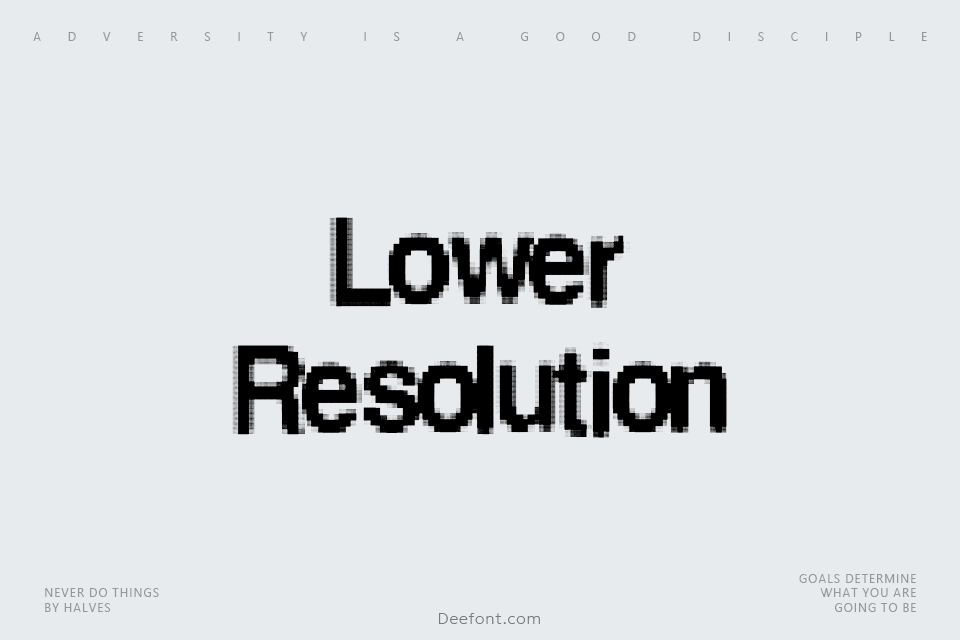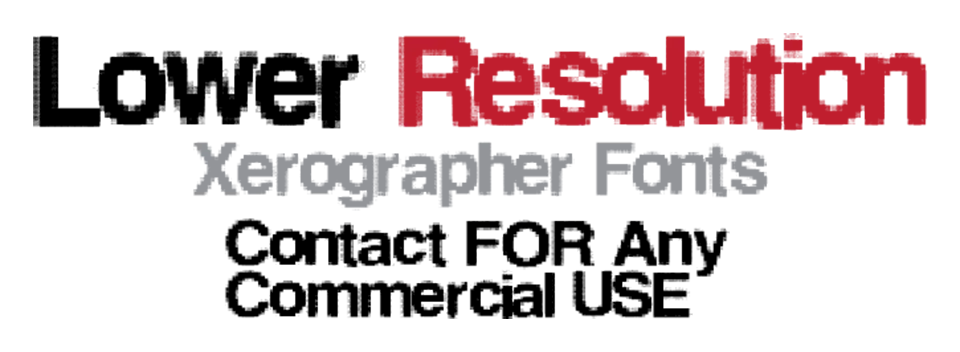
Lower Resolution Font
Lower Resolution Font is a distorted, fancy typeface that delivers pixelated and retro-inspired character designs perfect for creative and artistic projects. Created by designer Max Infeld of Xerographer Fonts, this distinctive font transforms text into low-resolution, glitchy aesthetic compositions. Ideal for posters, digital art, album covers, and experimental typography, Lower Resolution Font combines nostalgic visual appeal with modern creative applications. The font’s unique distorted character set makes it an excellent choice for designers seeking bold, unconventional typography that stands out visually.
Designed by:Max Infeld (Xerographer Fonts)